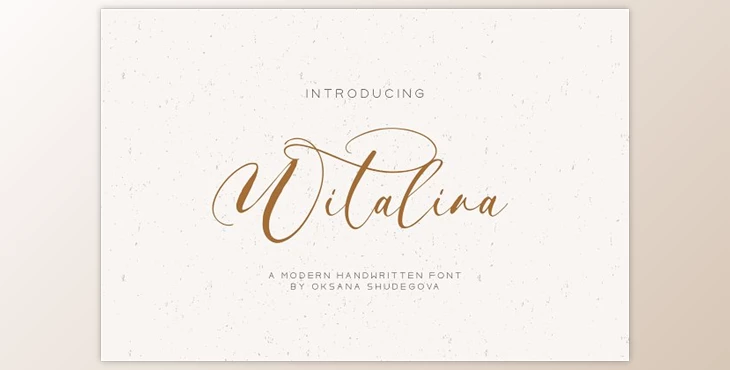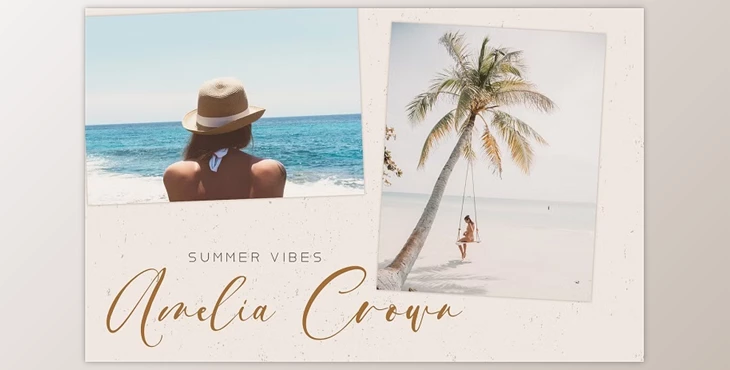
Witalina Handwritten Font is a newly crafted calligraphy typeface designed to infuse elegance into your projects. Available in OpenType, TrueType, and Web Open Font Format, Witalina elevates creativity with its charming aesthetic.
Suited for a range of applications including greeting cards, branding materials, and wedding postcards, it also shines in crafting logos, blogs, and marketing materials, promising sophistication in every design endeavor.